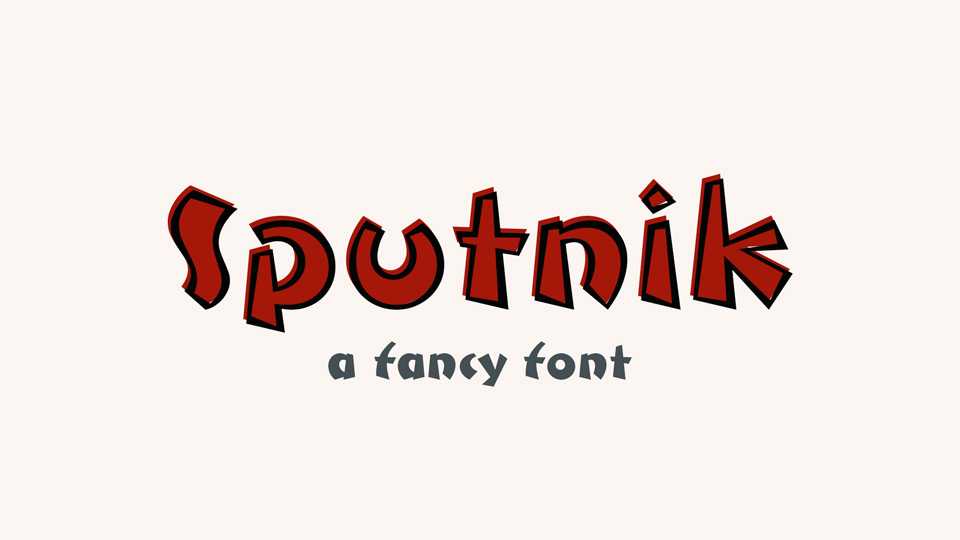
Download Sputnik font, a classy typeface for expressive messages. Its bold look and fancy shapes are perfect for any kind of posters, headlines and eye-catching graphics, games and more.
Designer: Frank Baranowski